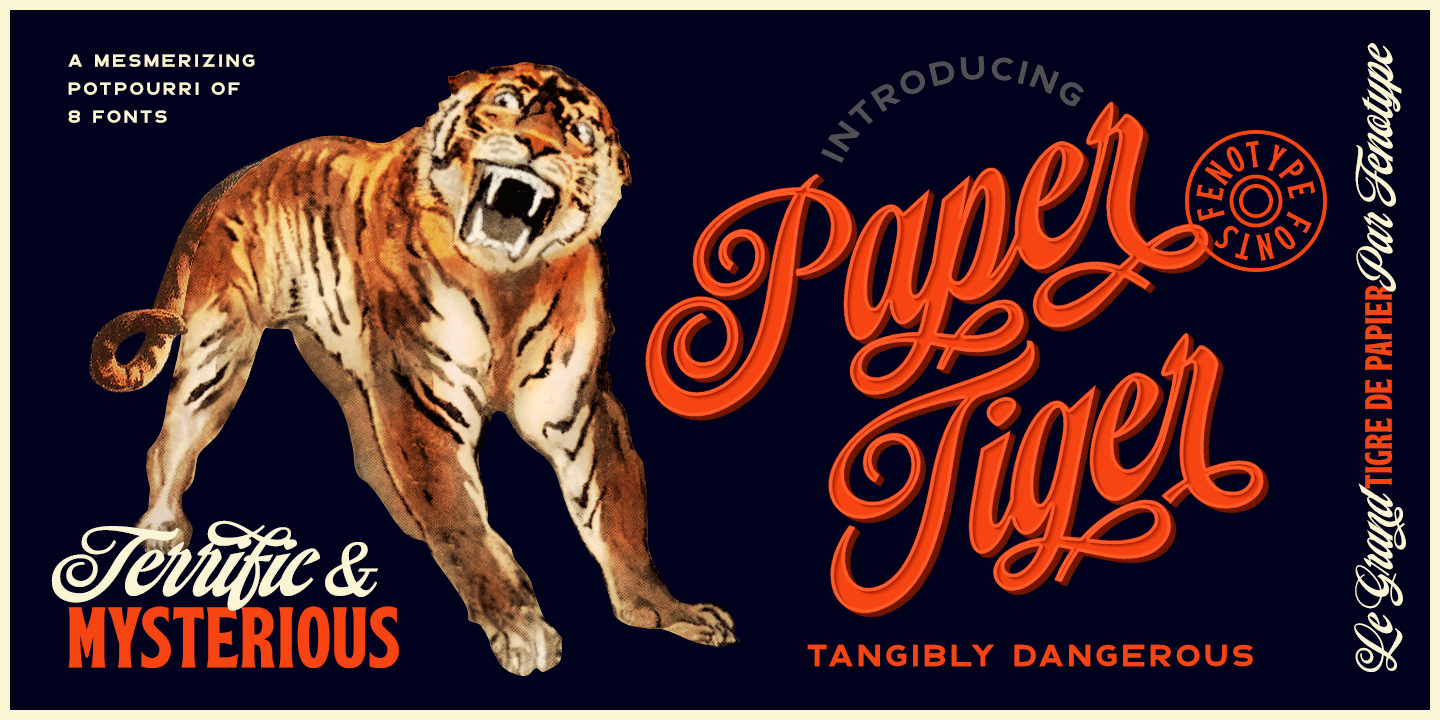
Paper Tiger Font is perfect for urban branding, streetwear logos, sports team designs, music posters, edgy packaging, and bold social media campaigns. Its aggressive yet stylish style commands attention and adds attitude.
What makes Paper Tiger Font so exciting is its dynamic brush strokes and raw energy. The font blends hand-drawn elements with modern design, creating a sense of movement and rebellious spirit that brings your projects to life.
The font family usually includes Regular, Bold, and sometimes textured or grunge variations. These options let you customize the intensity and vibe of your designs with ease.
If you want to make a bold statement and inject fierce personality into your visuals, Paper Tiger Font Free Download is the perfect choice. Unleash your creative roar and let your work stand out.